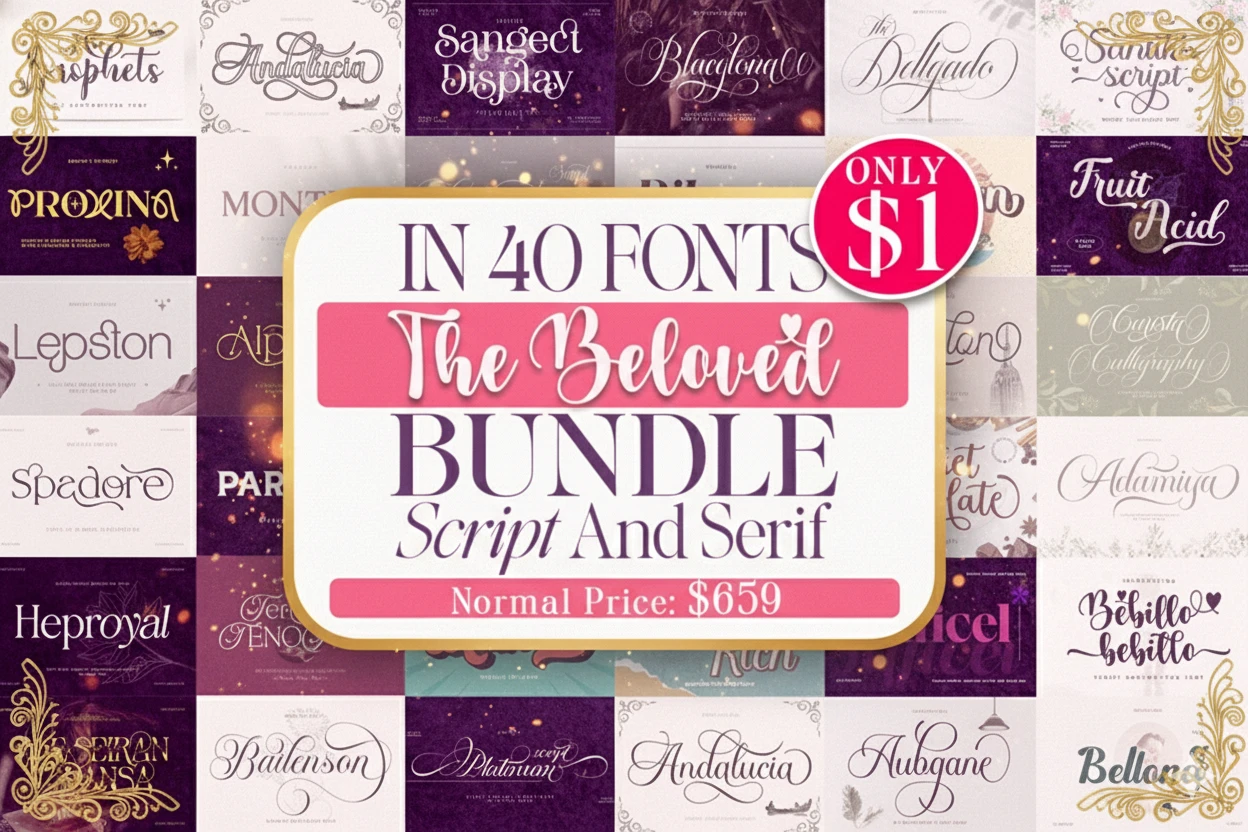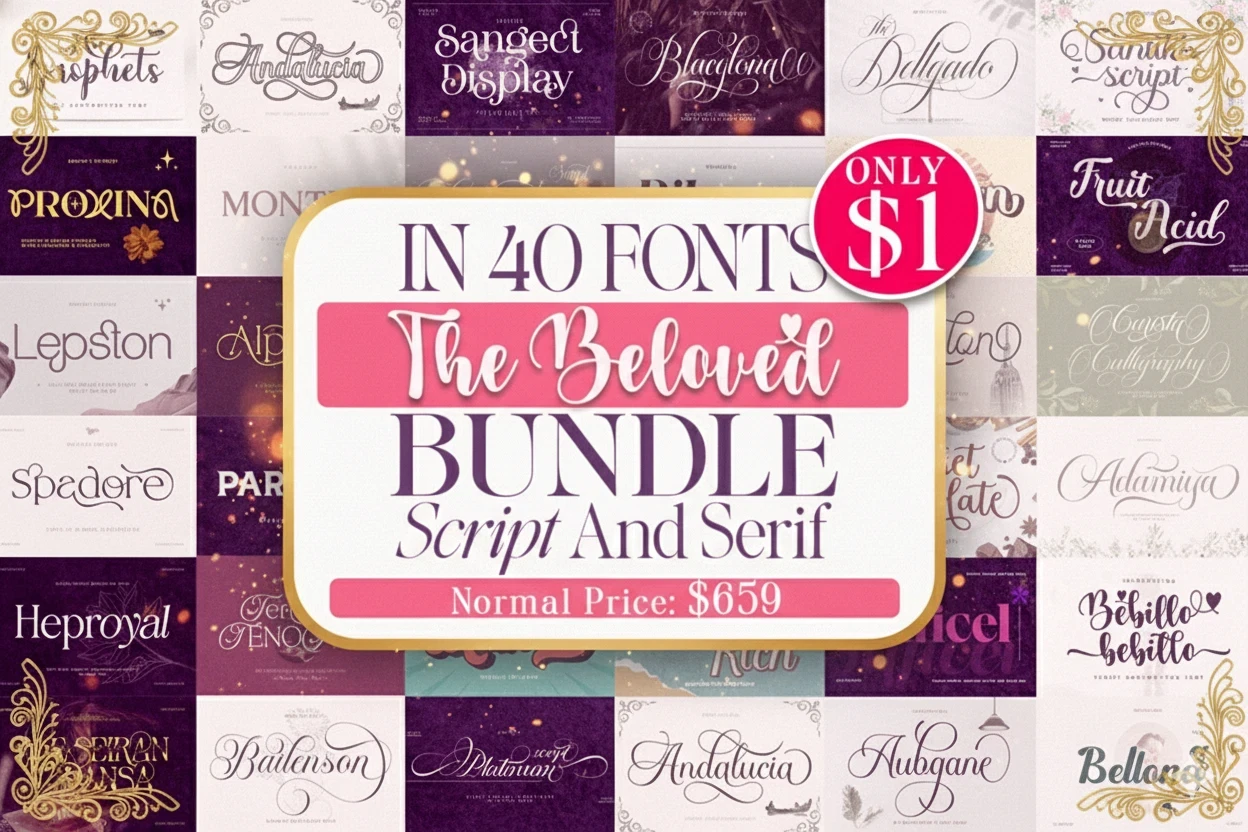
Fall in love with The Beloved Font Bundle, a romantic collection of 40 beautiful script and serif fonts designed to bring elegance and charm to your creative projects. Each typeface in this bundle has been crafted with artistic detail, combining the timeless grace of serifs with the flowing warmth of hand-drawn scripts.
Perfect for wedding invitations, branding, logos, packaging, greeting cards, posters, and fashion designs, this versatile bundle allows you to express creativity with sophistication. Every font comes with smooth curves, stylish alternates, and multilingual support, making it ideal for professional and personal use.